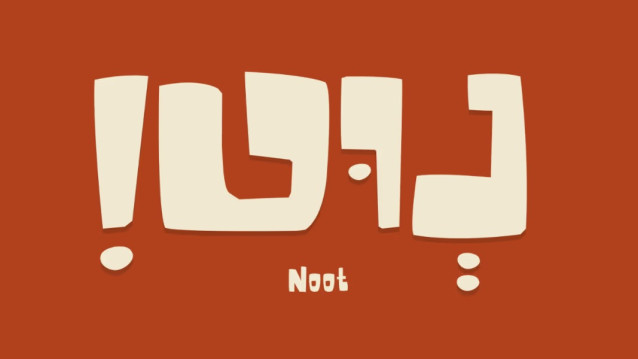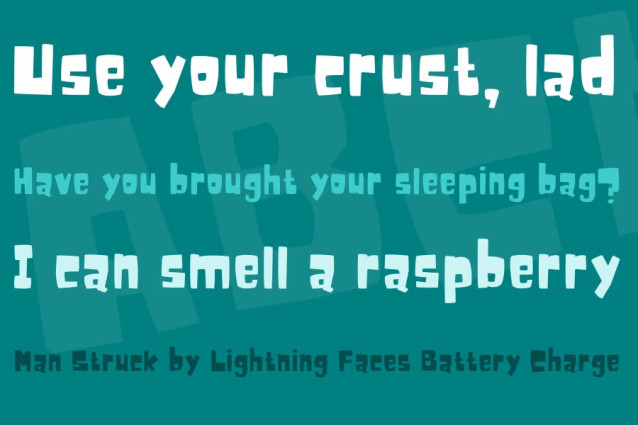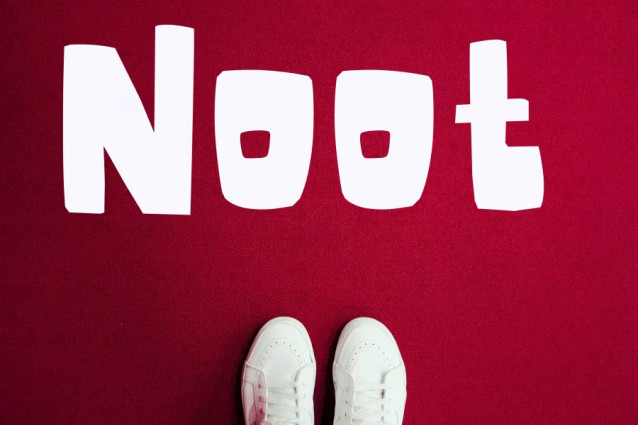
Noot Display Font is a Bi-lingual font (Hebrew & English). The name is an anagram of the word Toon. As such, it was designed to be used in a humorous context. The lack of X height provide the characters funny look and feel. Designed as part of a final project at Shenkar College of Engineering and Design, 2012.
Noot Display Font